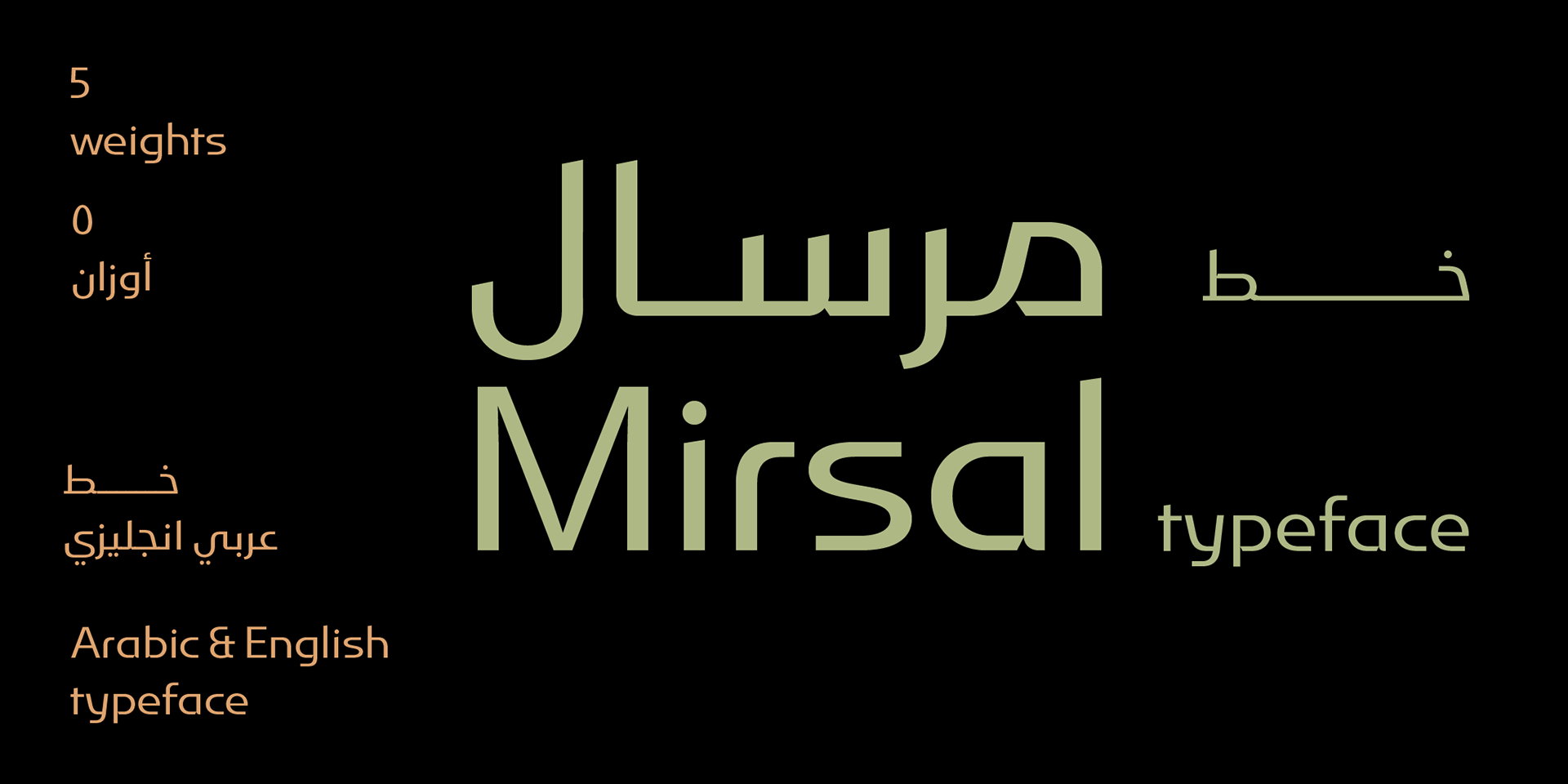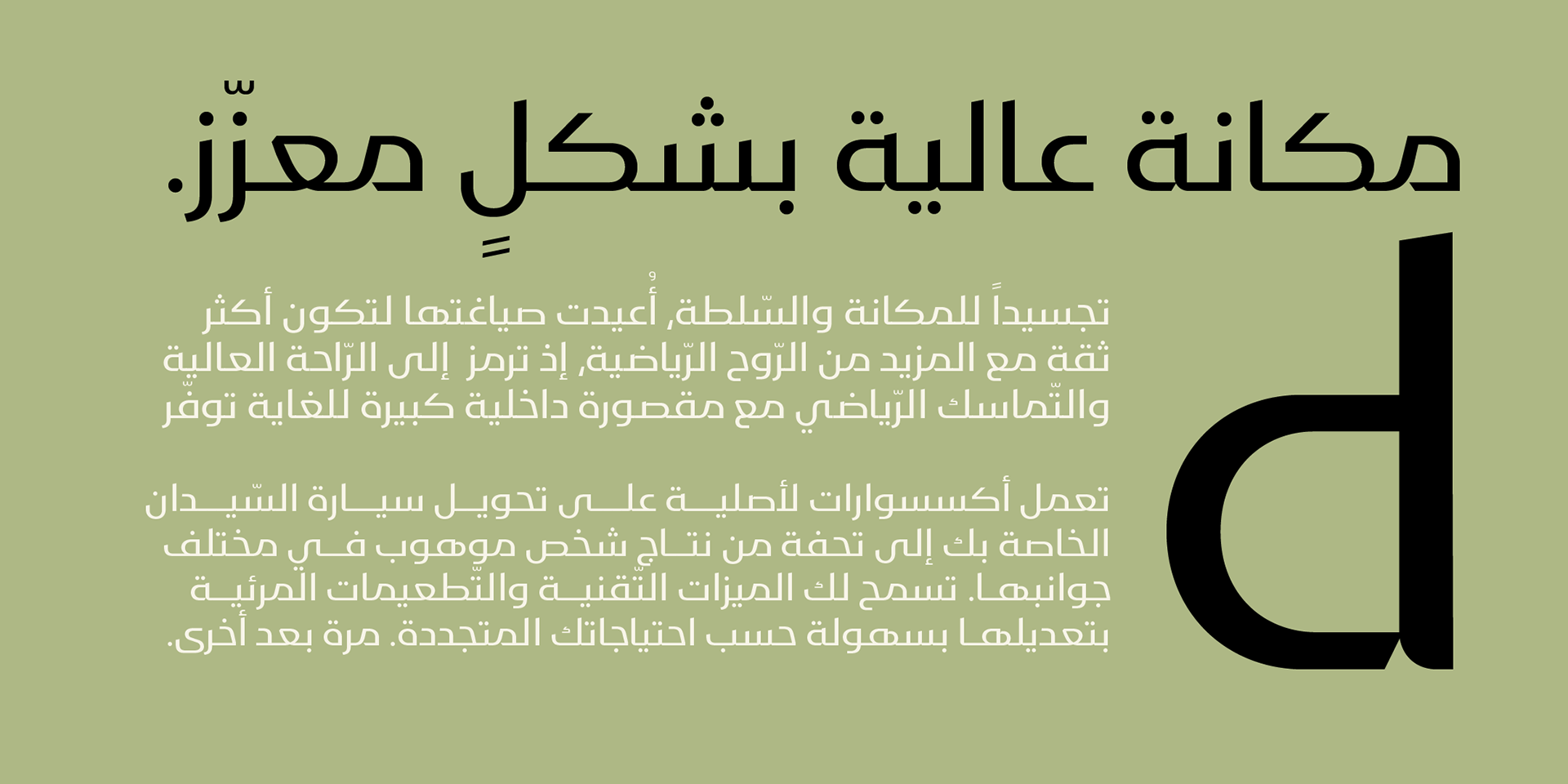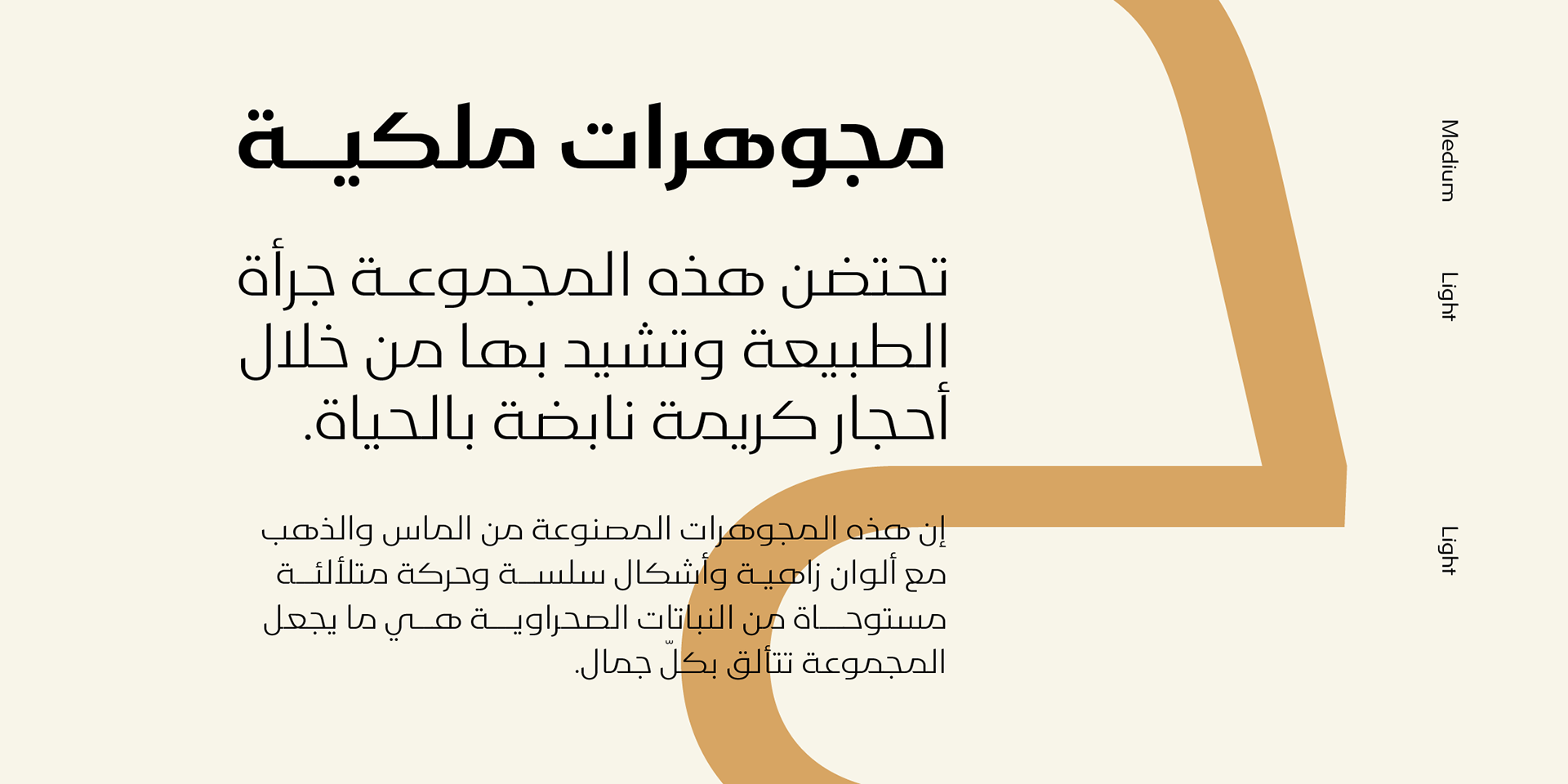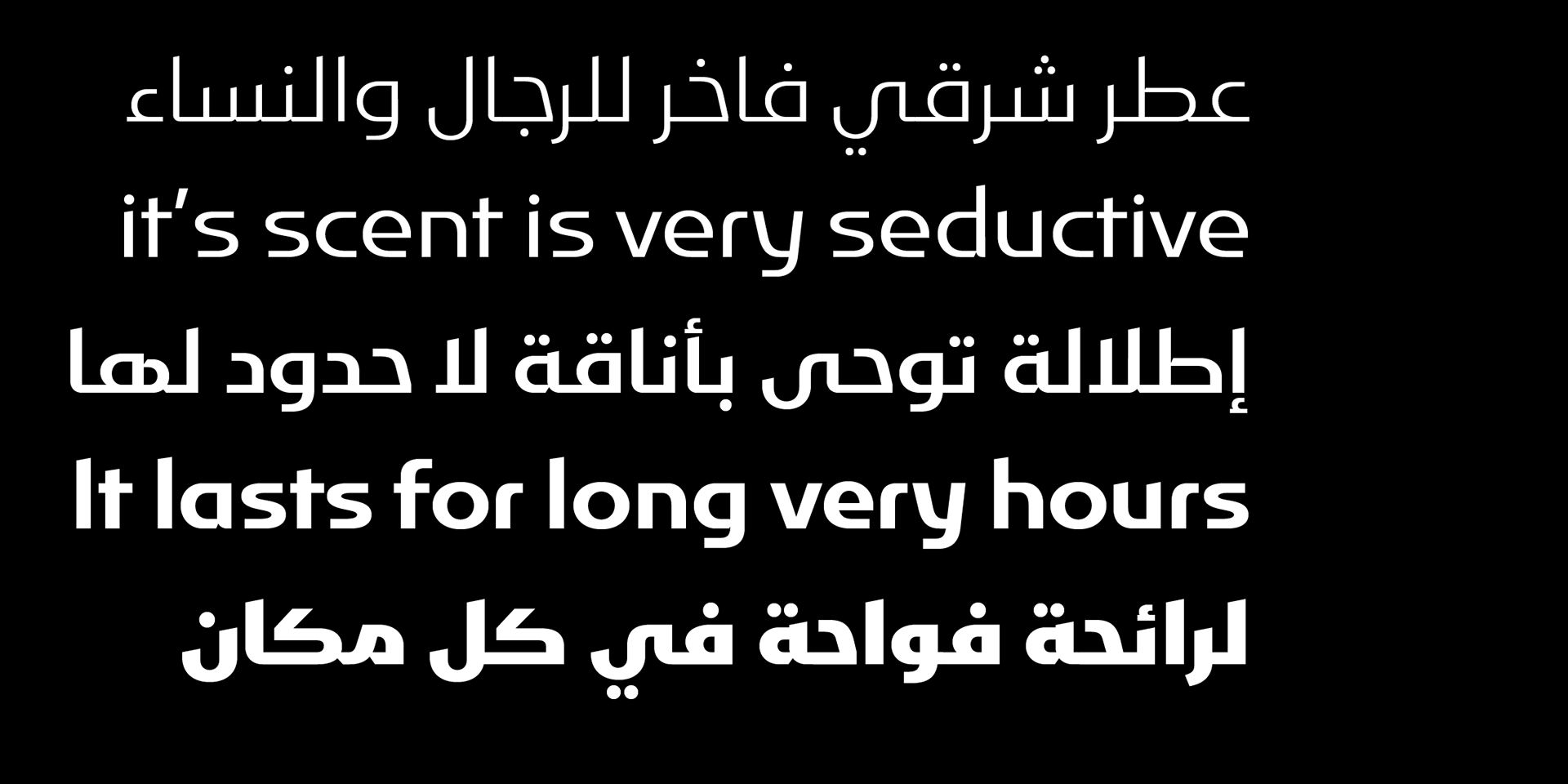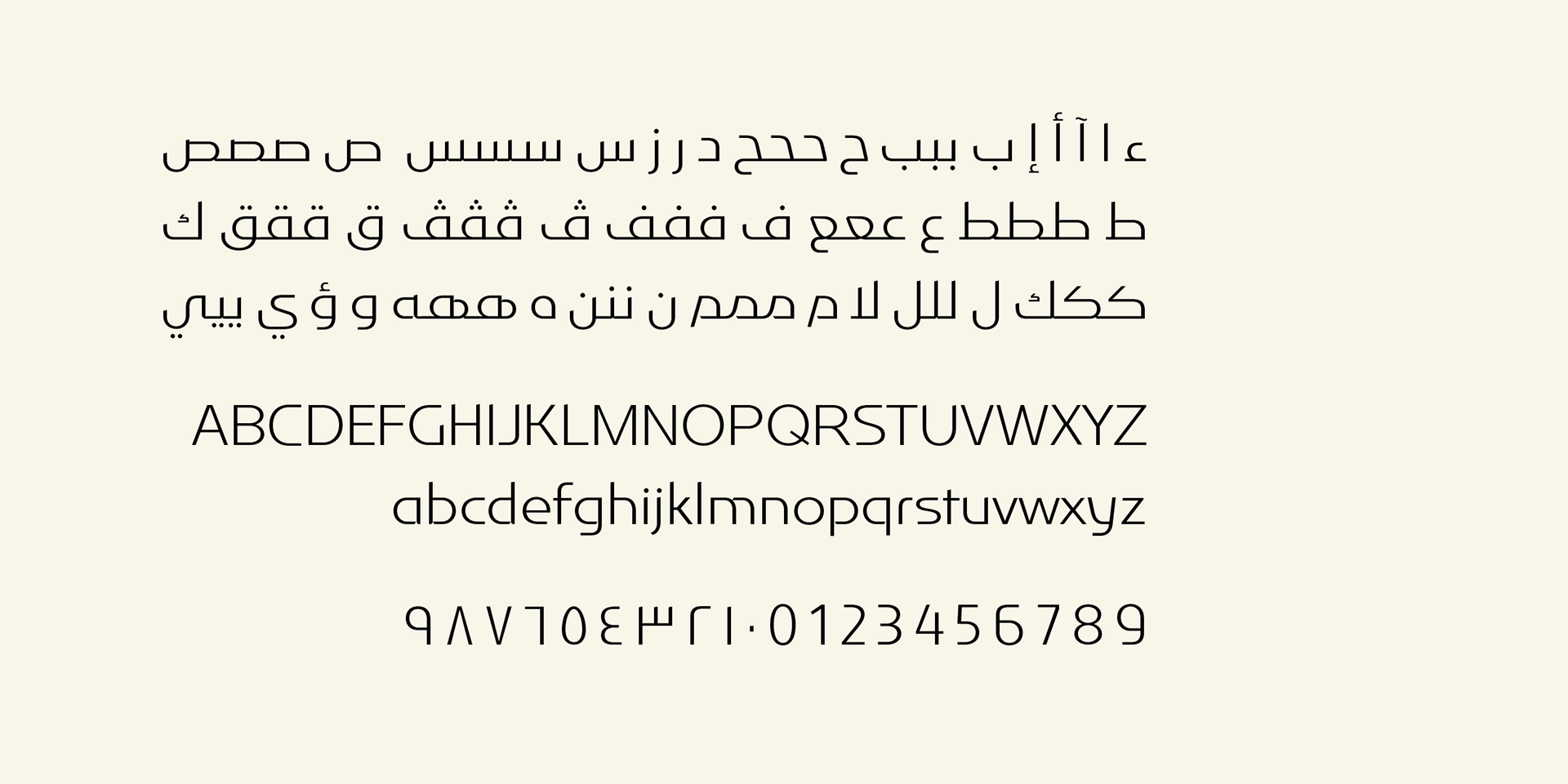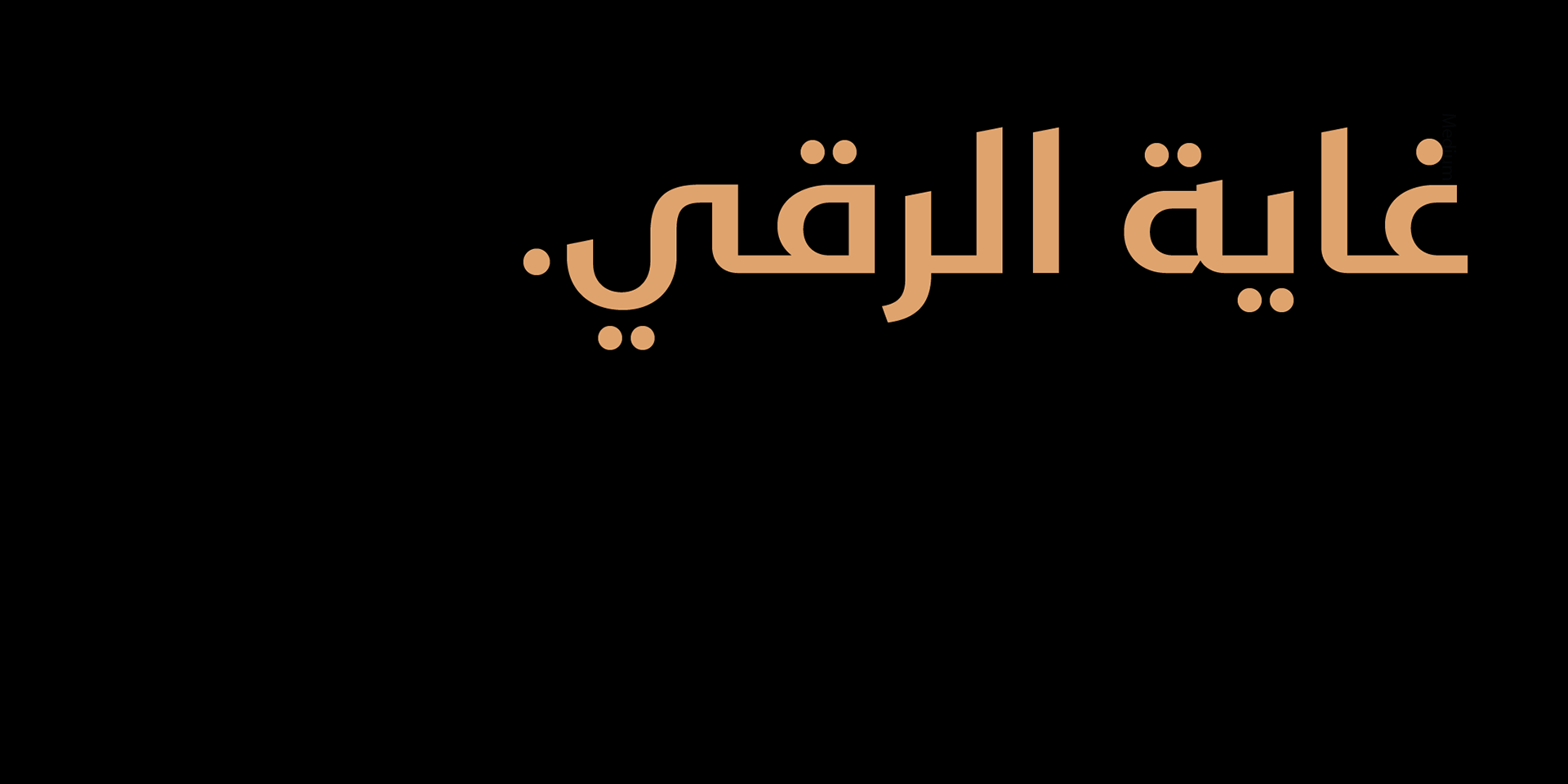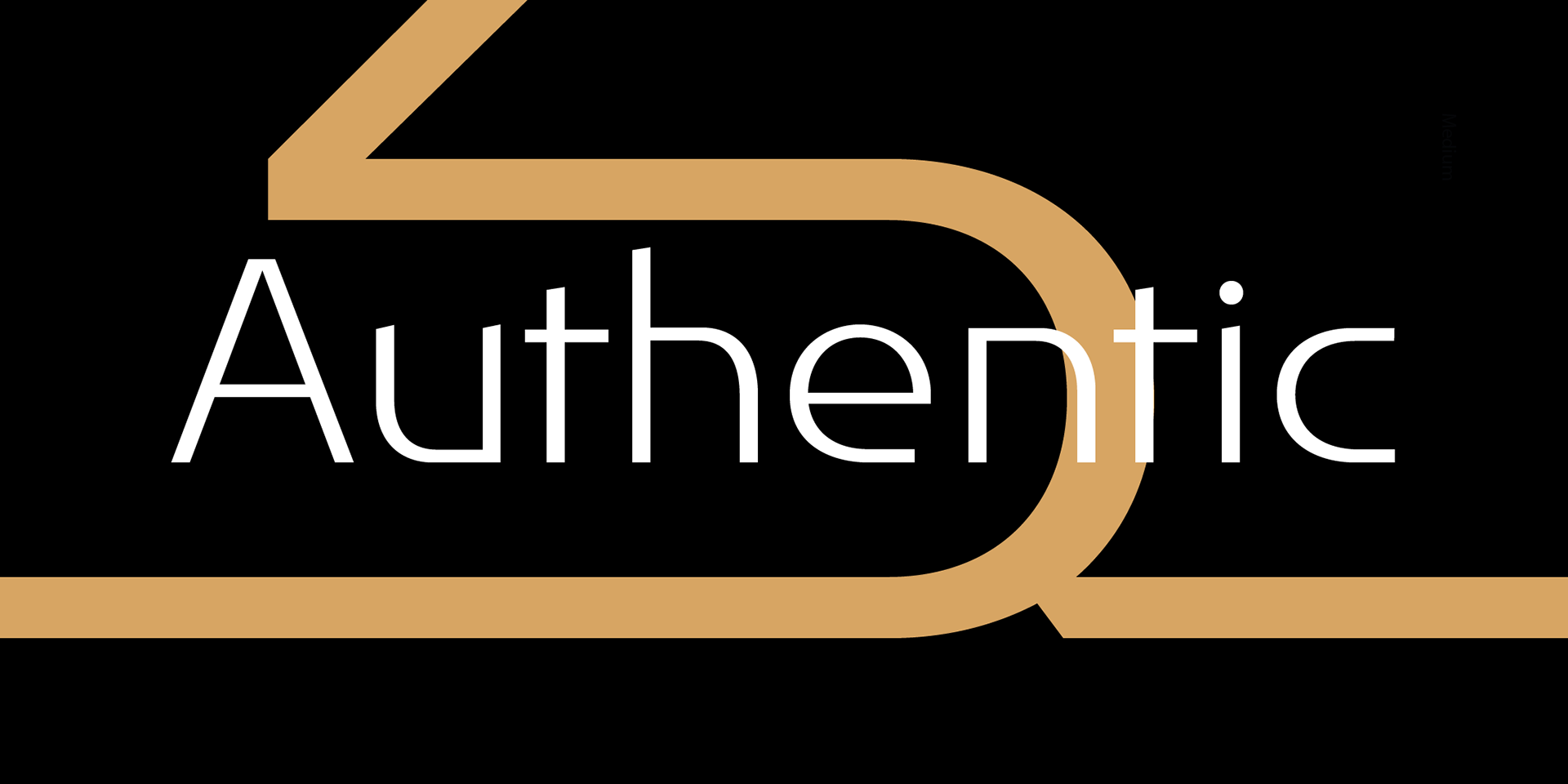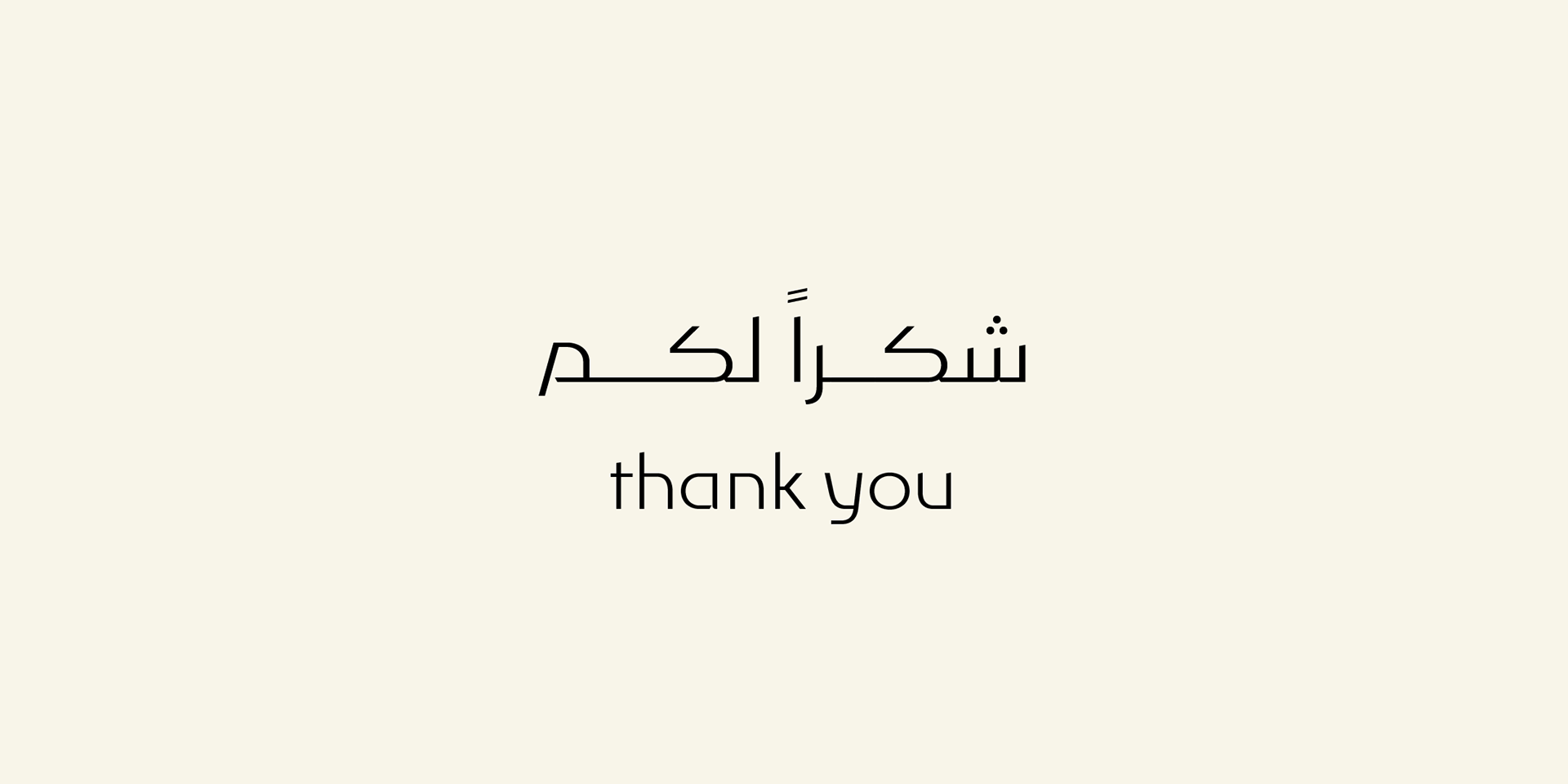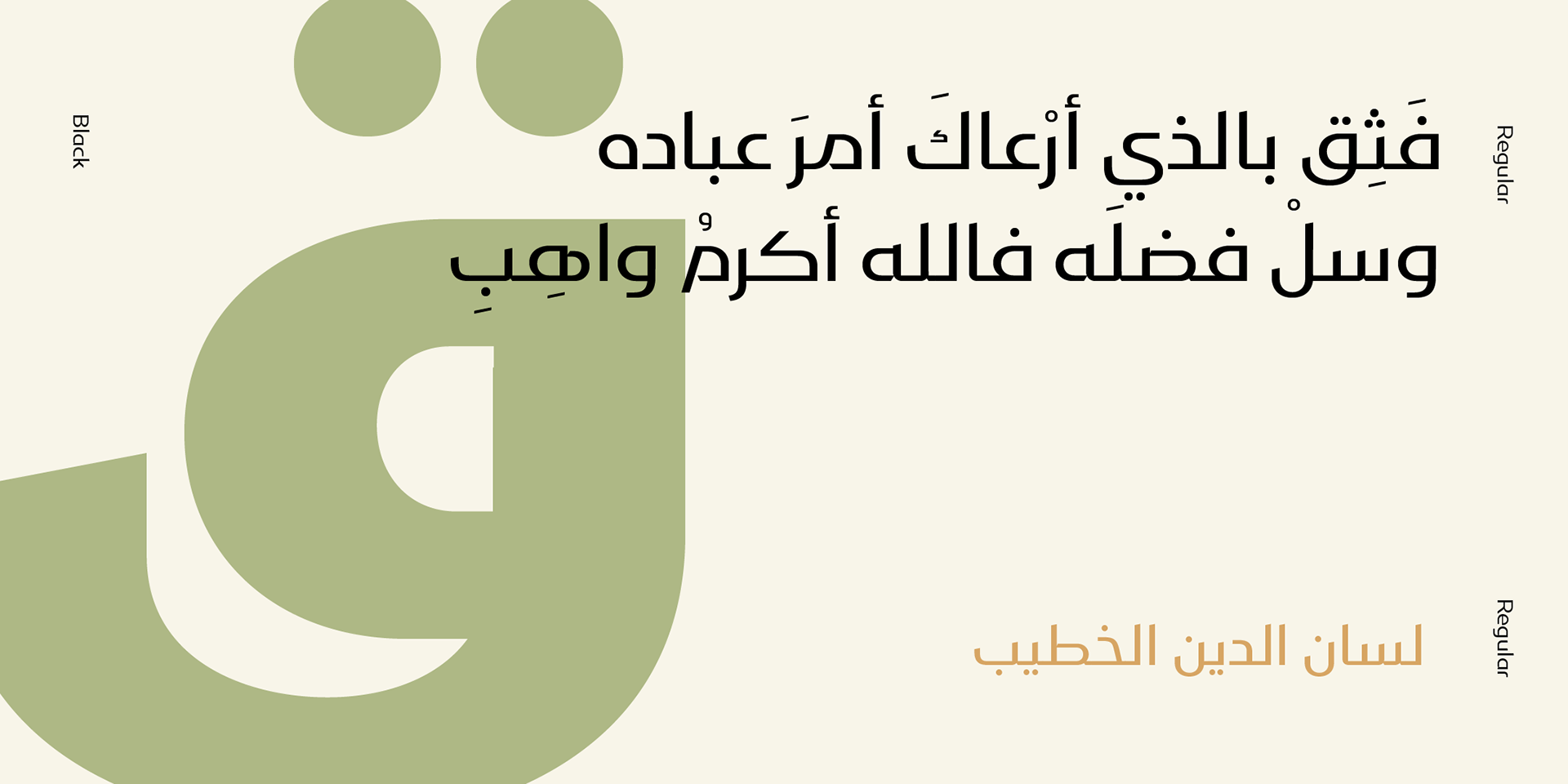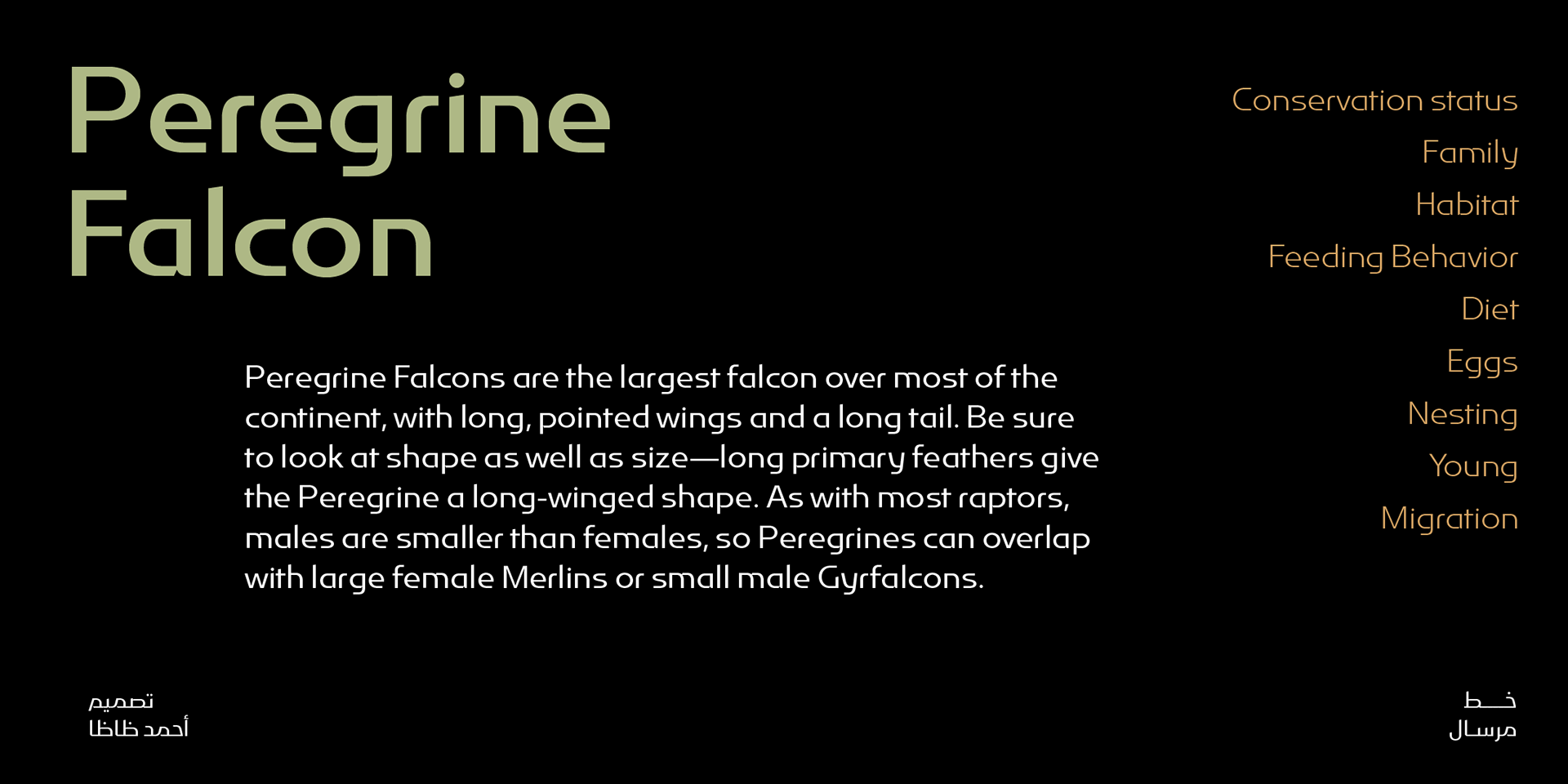
Mirsal Arabic typeface - خط مرسال
Mirsal Arabic typeface is a modern Arabic typeface designed by Ahmed Zaza. the design is inspired by the Kufi calligraphic style and influenced by the Naskh style. The result is a hybrid that combines modern proportions with Classic Arabic scripts it's suitable for branding, editorial, packaging, and advertising. Mirsal Arabic Features five weights from Light to Black.